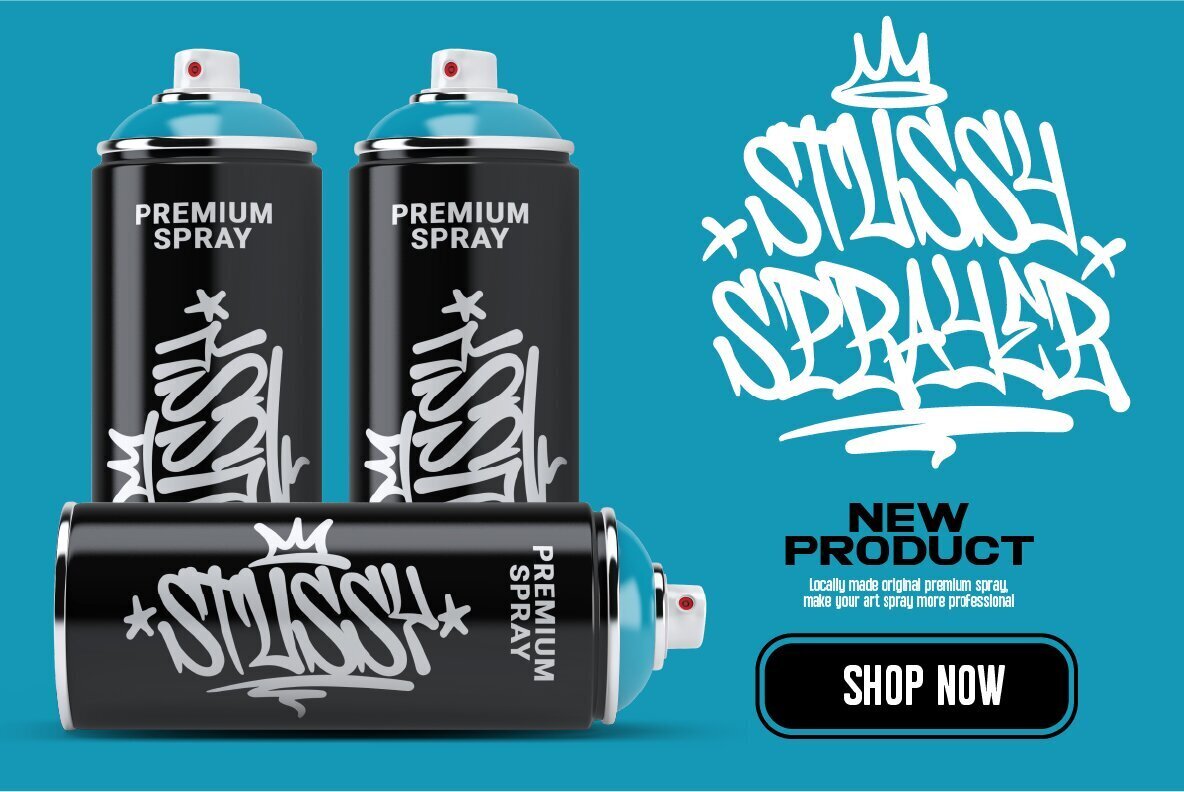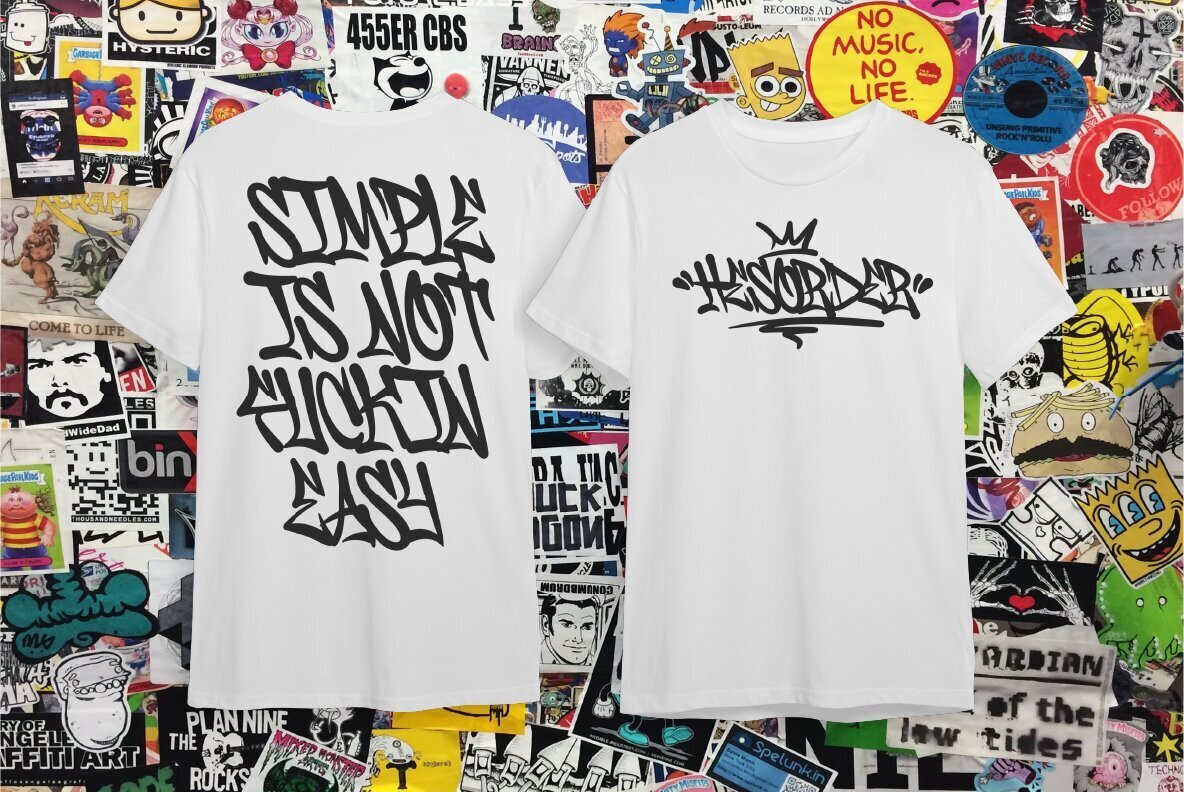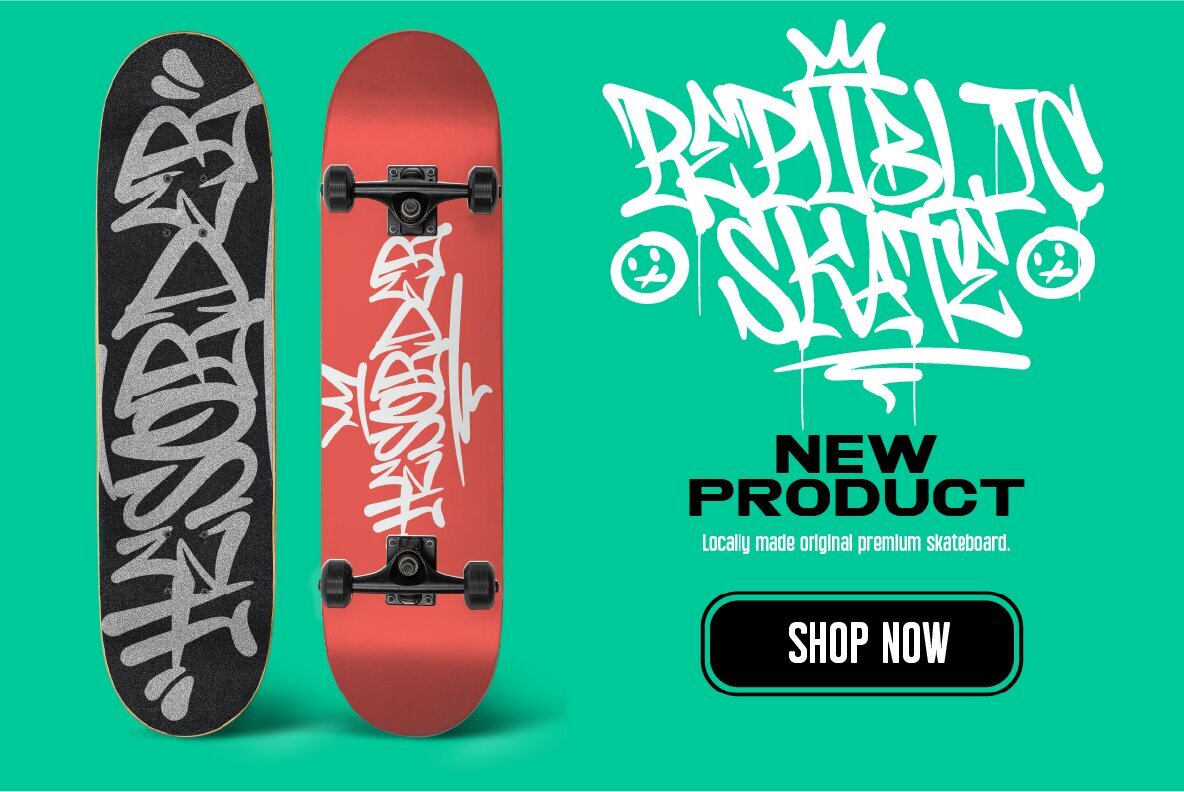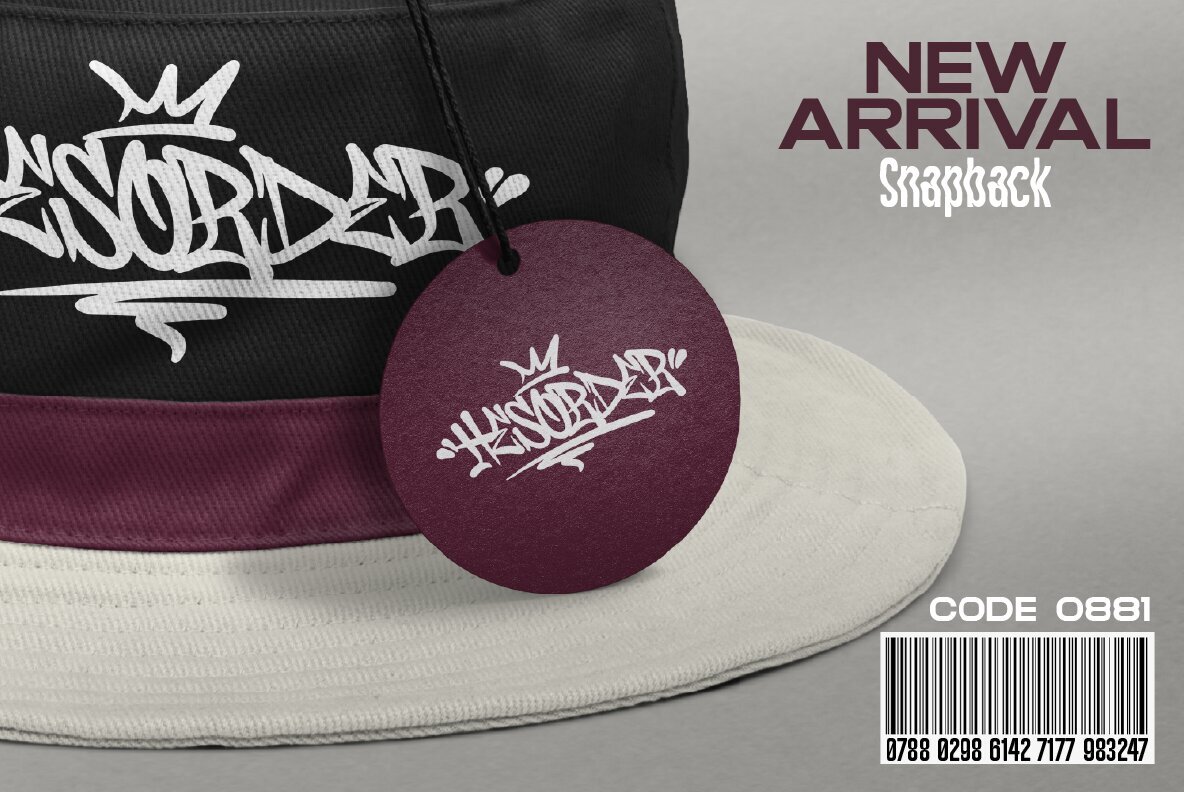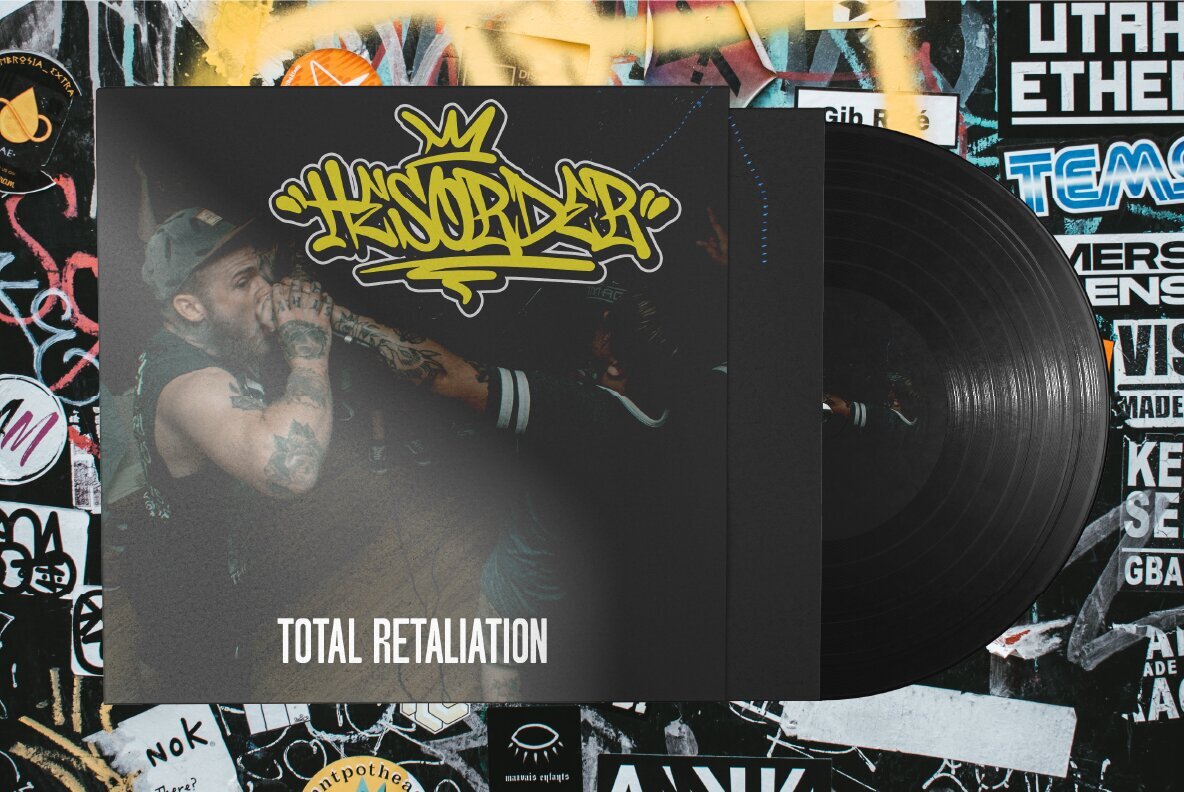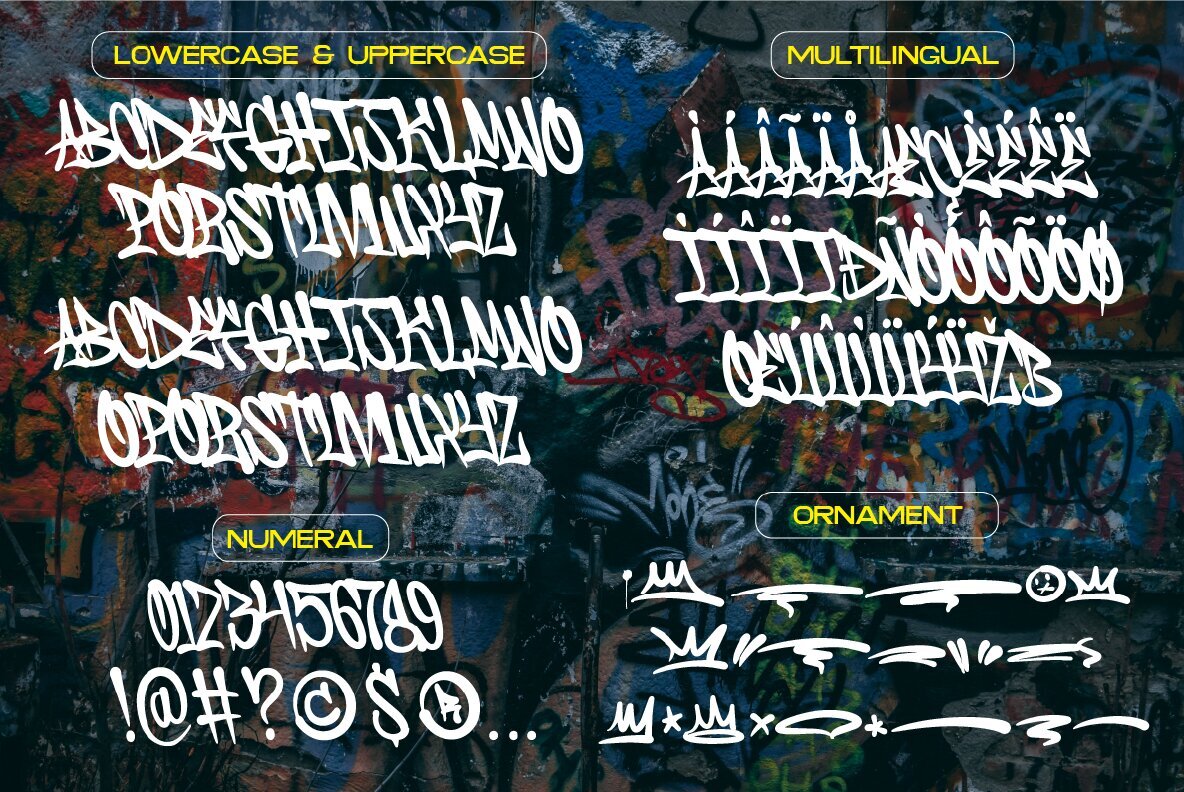
Hesorder Font
Hesorder captures the dynamic essence of street graffiti, drawing inspiration from urban landscapes. Designed with bold strokes, this font ensures readability while being ideal for street art motifs.Hesorder: Graffiti-Inspired Typeface